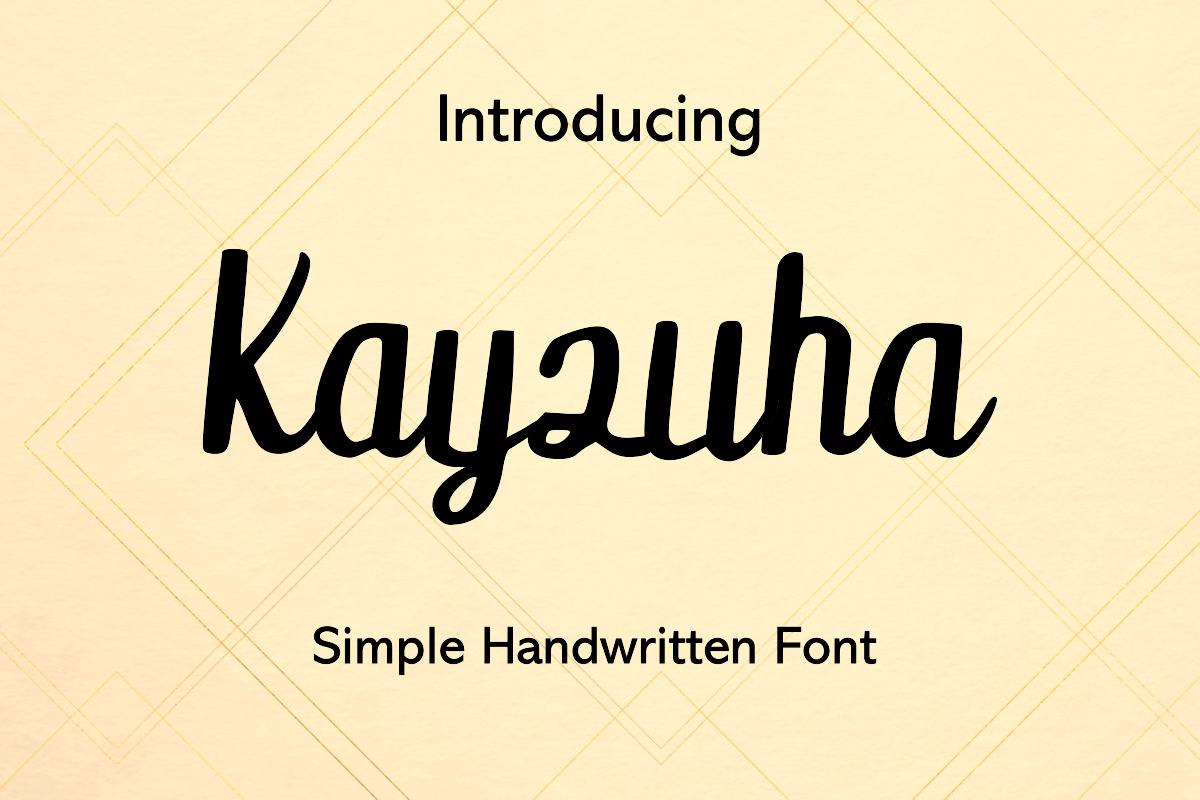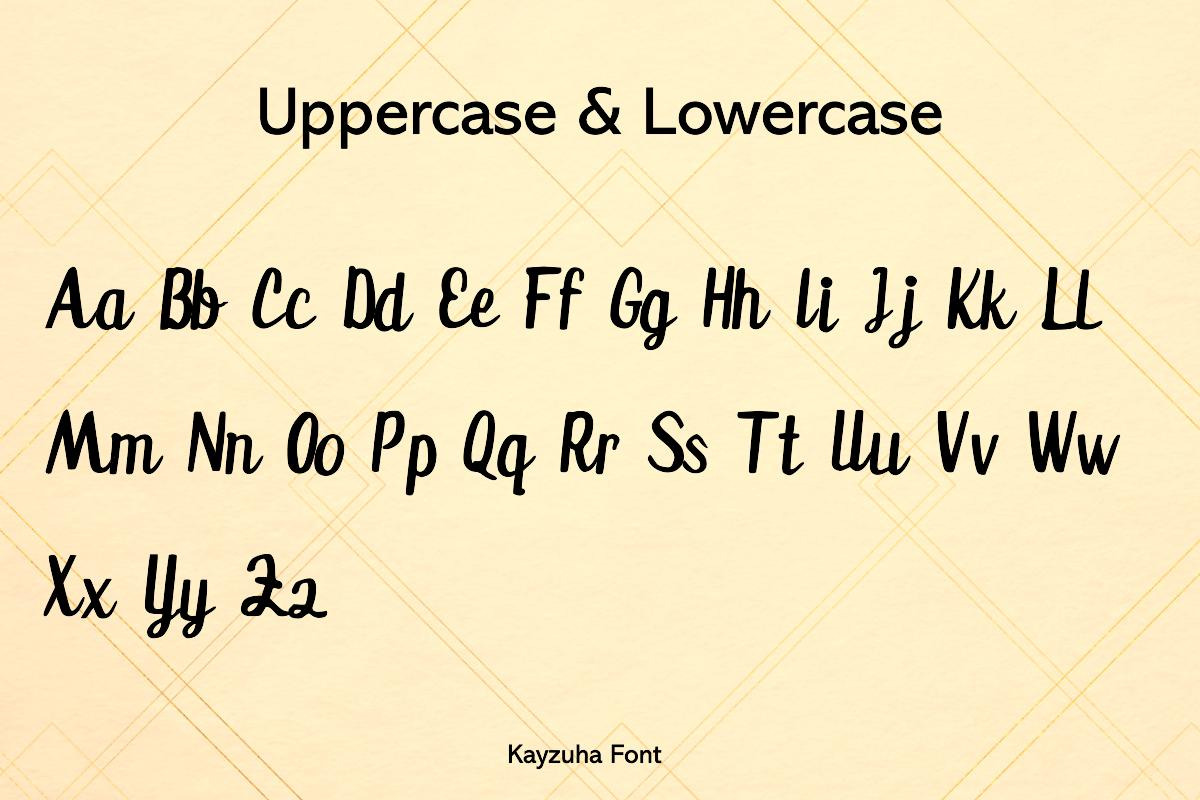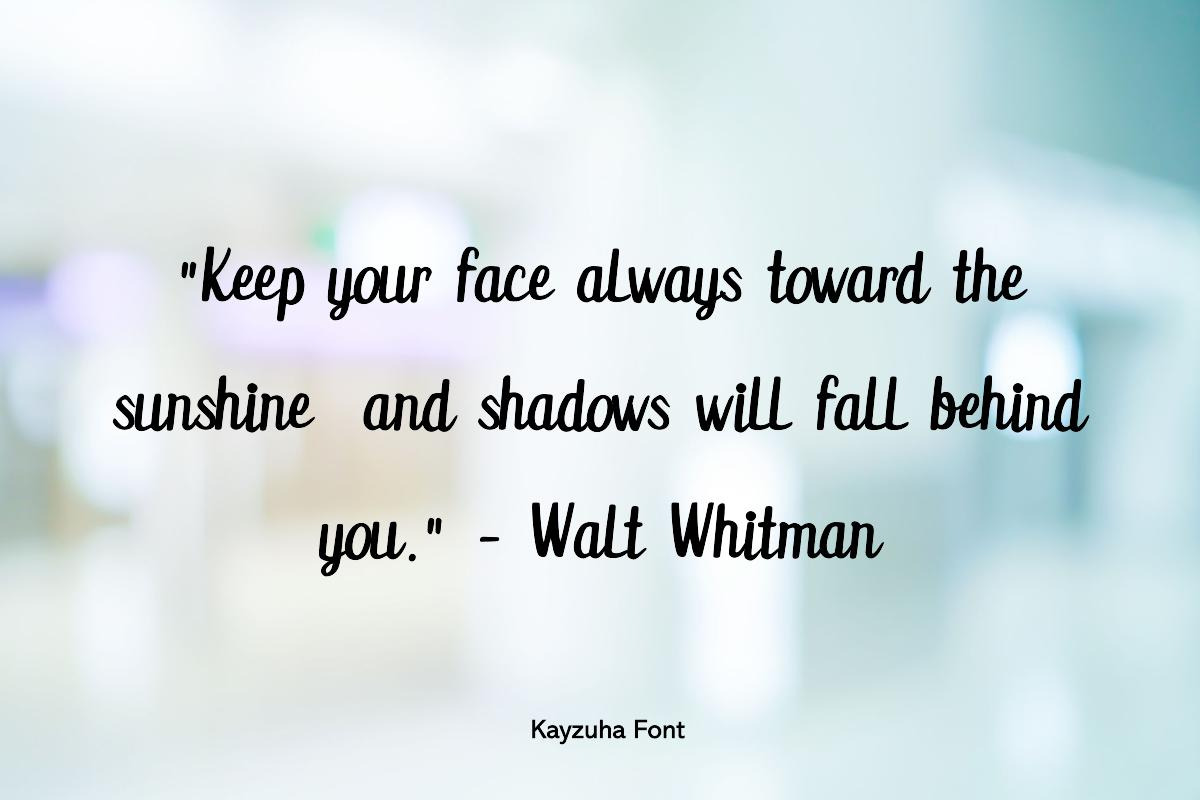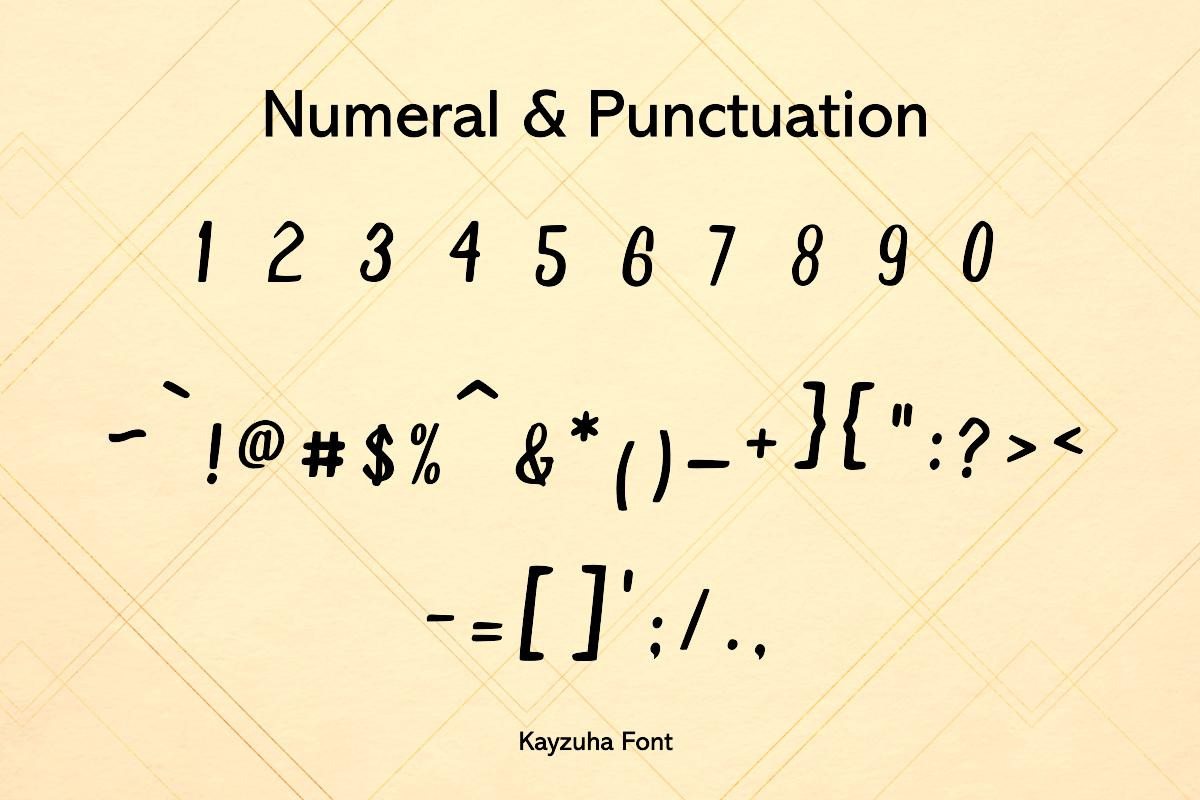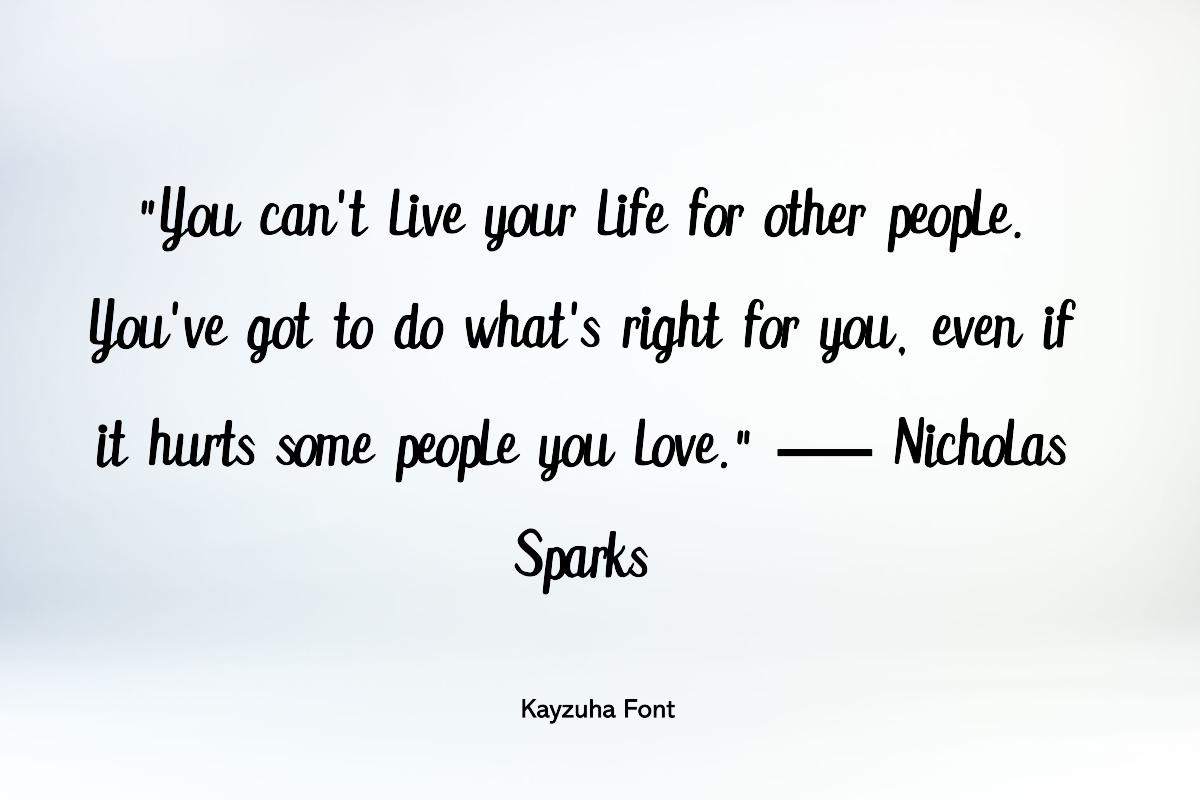
Kayzuha Modern Handwritten Font
'Kayzuha' – Elegance in Every Stroke
Introducing 'Kayzuha', a modern handwritten font that speaks volumes with its understated elegance. Crafted with care, each stroke of Kayzuha is a testament to the beauty of simplicity, making it the perfect choice for those who appreciate a clean and stylish script.
Ideal for:
- Sophisticated Branding: Convey a sense of refined taste with a font that's effortlessly chic.
- Elegant Design Projects: From websites to print, Kayzuha adds a touch of class to any medium.
- Personalized Communications: Give your messages a signature look that's both contemporary and timeless.
'Kayzuha' is not just a font; it's an experience of modern elegance, designed to elevate your creative work with its subtle charm.